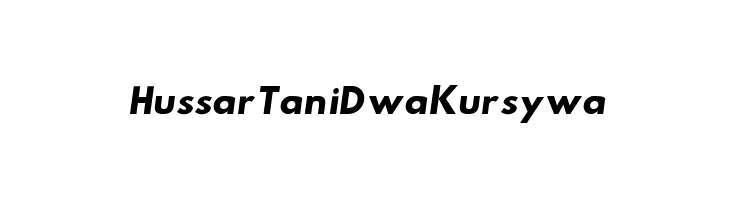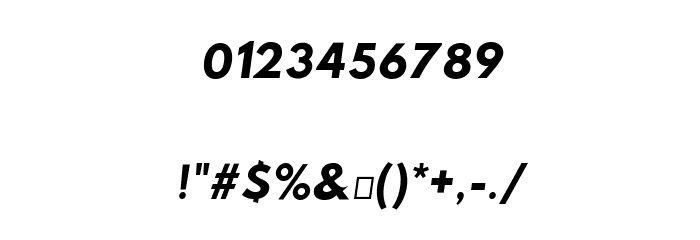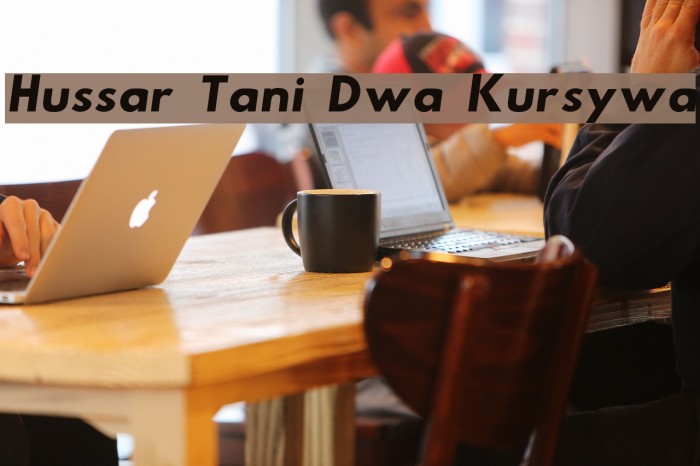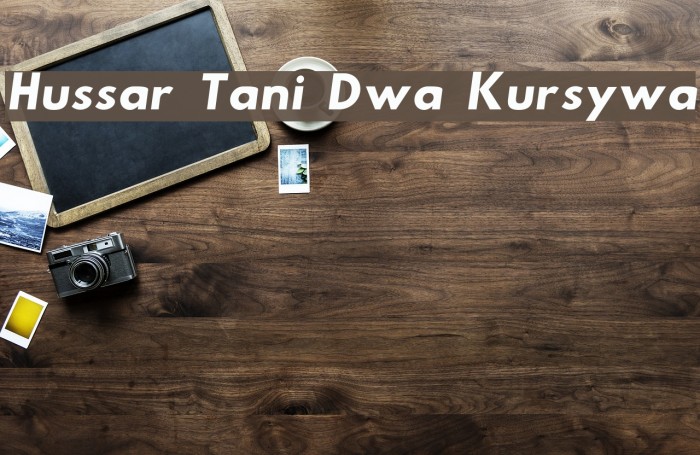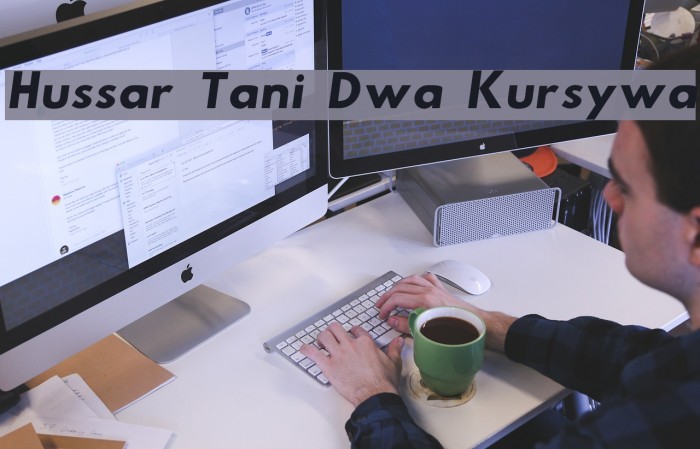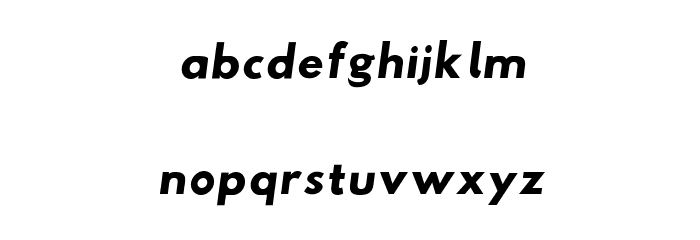
Hussar Tani Dwa Kursywa Font
Hussar Tani Dwa Kursywa Description
This font exhibits a modern and dynamic style with a slight slant, giving it an italicized appearance. The characters are bold and have a consistent stroke width, contributing to a clean and robust look. The uppercase and lowercase letters are well-proportioned, with a slight emphasis on the curves, particularly noticeable in letters like 'a', 'e', and 's'. The numerals are clear and distinct, maintaining the font's overall boldness. Special characters are well-integrated, ensuring versatility in various design contexts. The font's design is suitable for projects that require a contemporary and energetic feel.
A bold, modern font with a slight italic slant and consistent stroke width from Uncategorized fonts.
- Proposed Projects: Ideal for branding, advertising, headlines, and digital media projects that require a bold and modern aesthetic.
- Use Case: Headlines, Logos, Branding